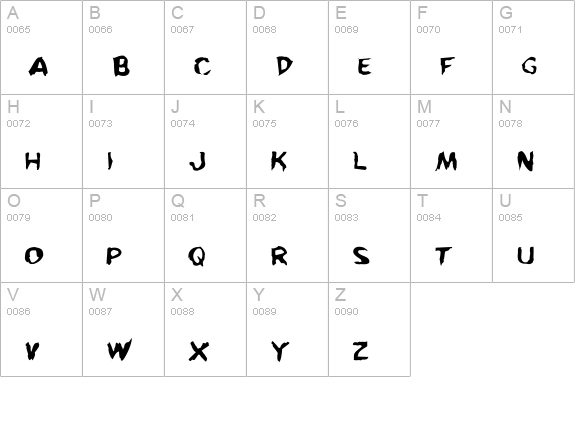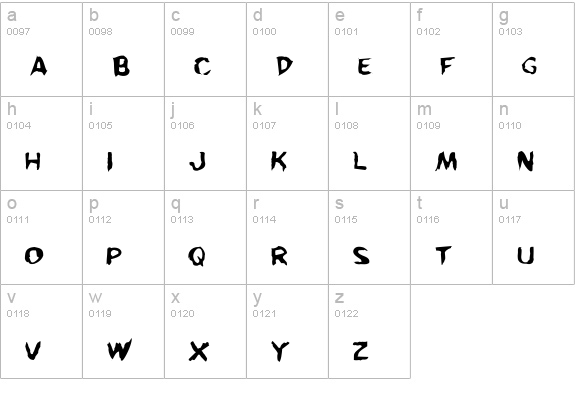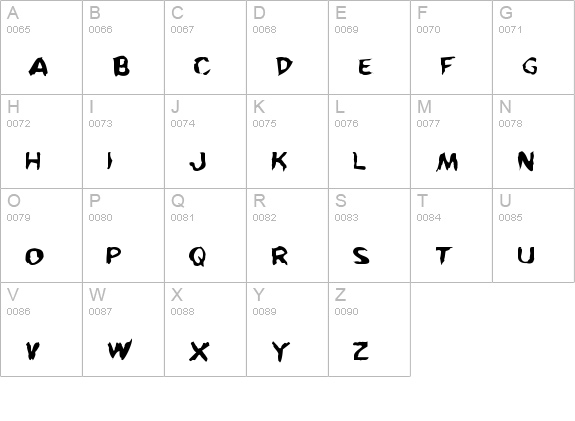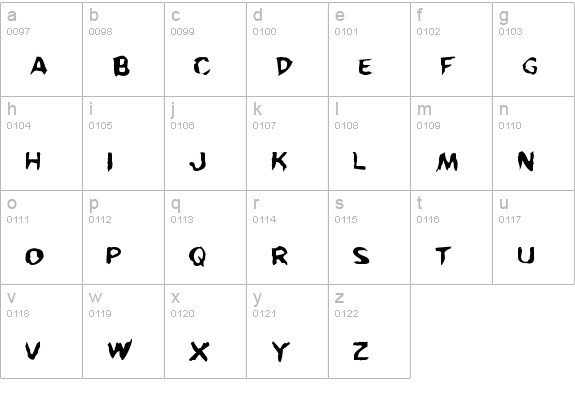
Kreeture Warped Font Details
Introducing Kreeture Warped font, a whimsical and playful typeface that is perfect for adding a touch of fun to your design projects. This unique font features distorted and twisted letterforms that give it a quirky and offbeat look. Kreeture Warped font is ideal for creating eye-catching headlines, posters, invitations, and more. What sets Kreeture Warped font apart is its free-spirited and unconventional style, making it a great choice for projects that call for a bit of personality and charm. Whether you're working on a children's book, a branding project, or a party invitation, Kreeture Warped font will bring a sense of whimsy and creativity to your designs. Best of all, Kreeture Warped font is freely available to download at FontsMarket.com. So go ahead and add this delightful font to your collection today and let your creativity run wild with Kreeture Warped!